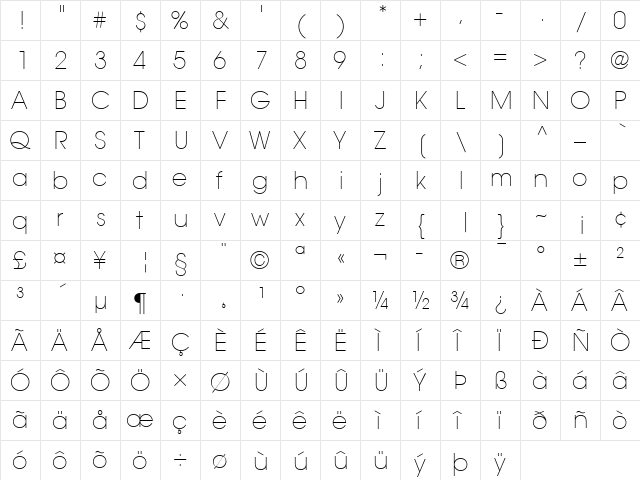
AvantGarde LT ExtraLight Regular
Design Context for AvantGarde LT ExtraLight Typeface
AvantGarde LT ExtraLight offers clean, dependable letterforms without strong stylistic allegiance, making it a practical choice for designers who need flexibility. The delicate stroke weight brings airiness and refinement to layouts.